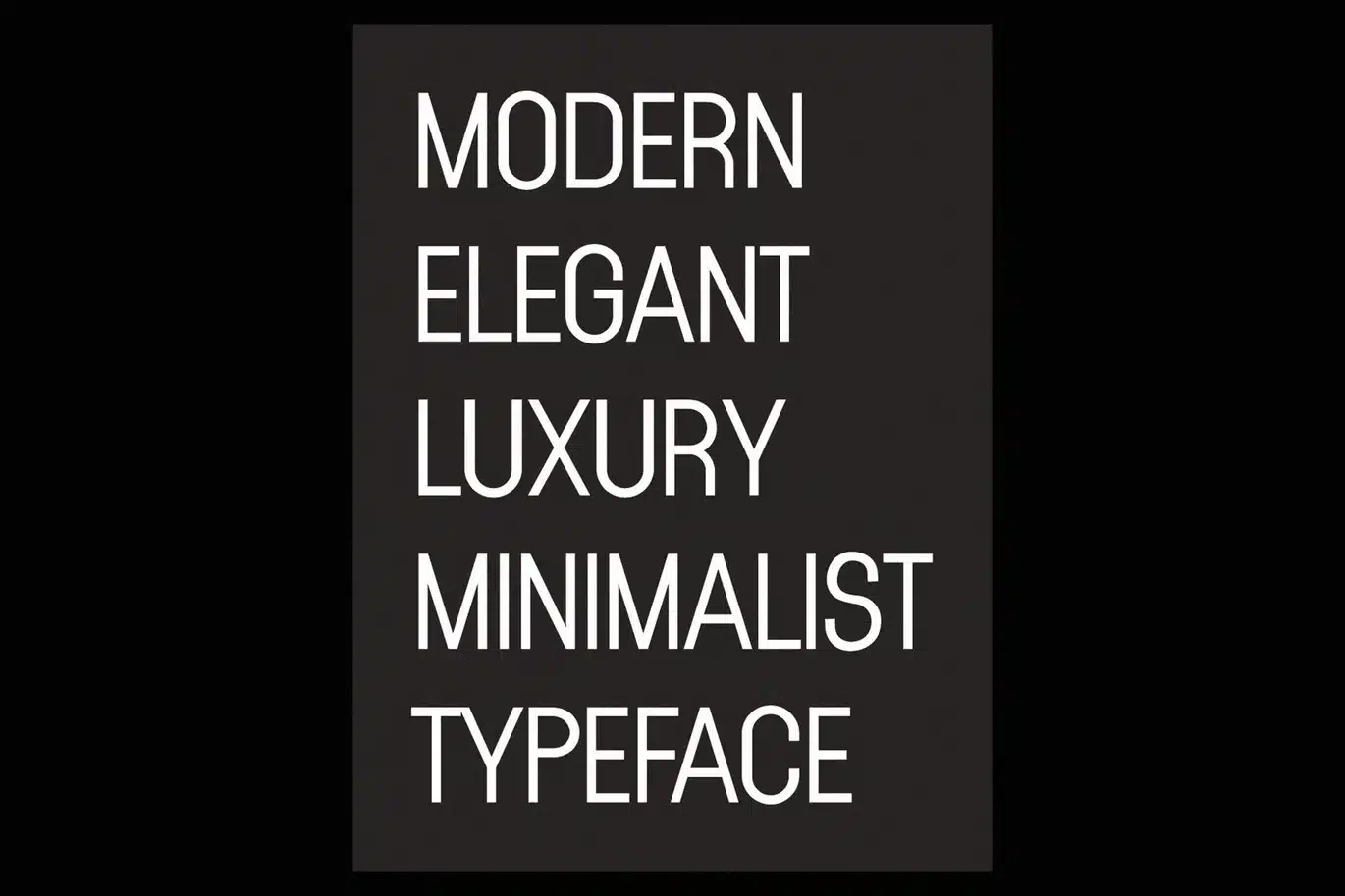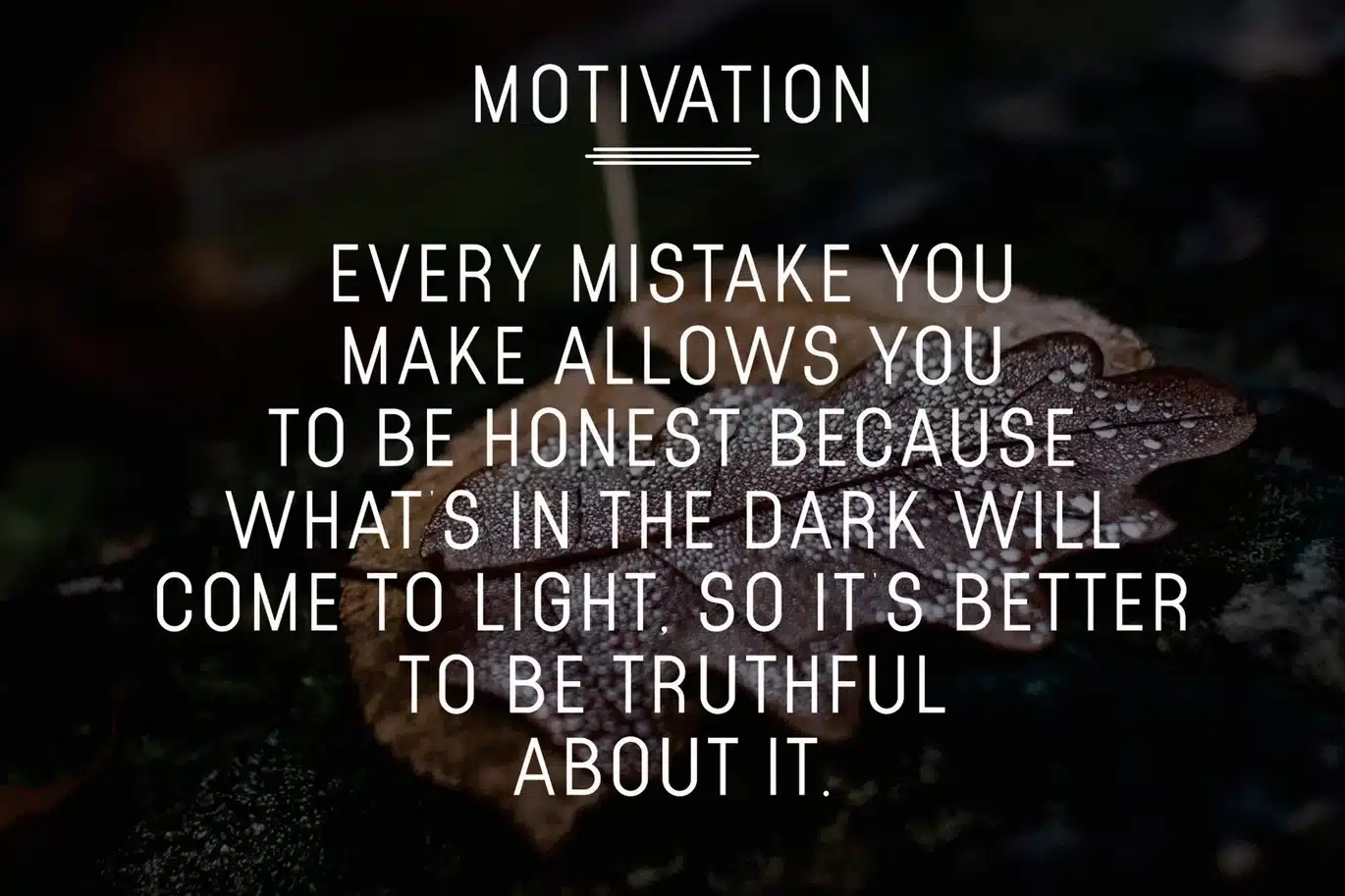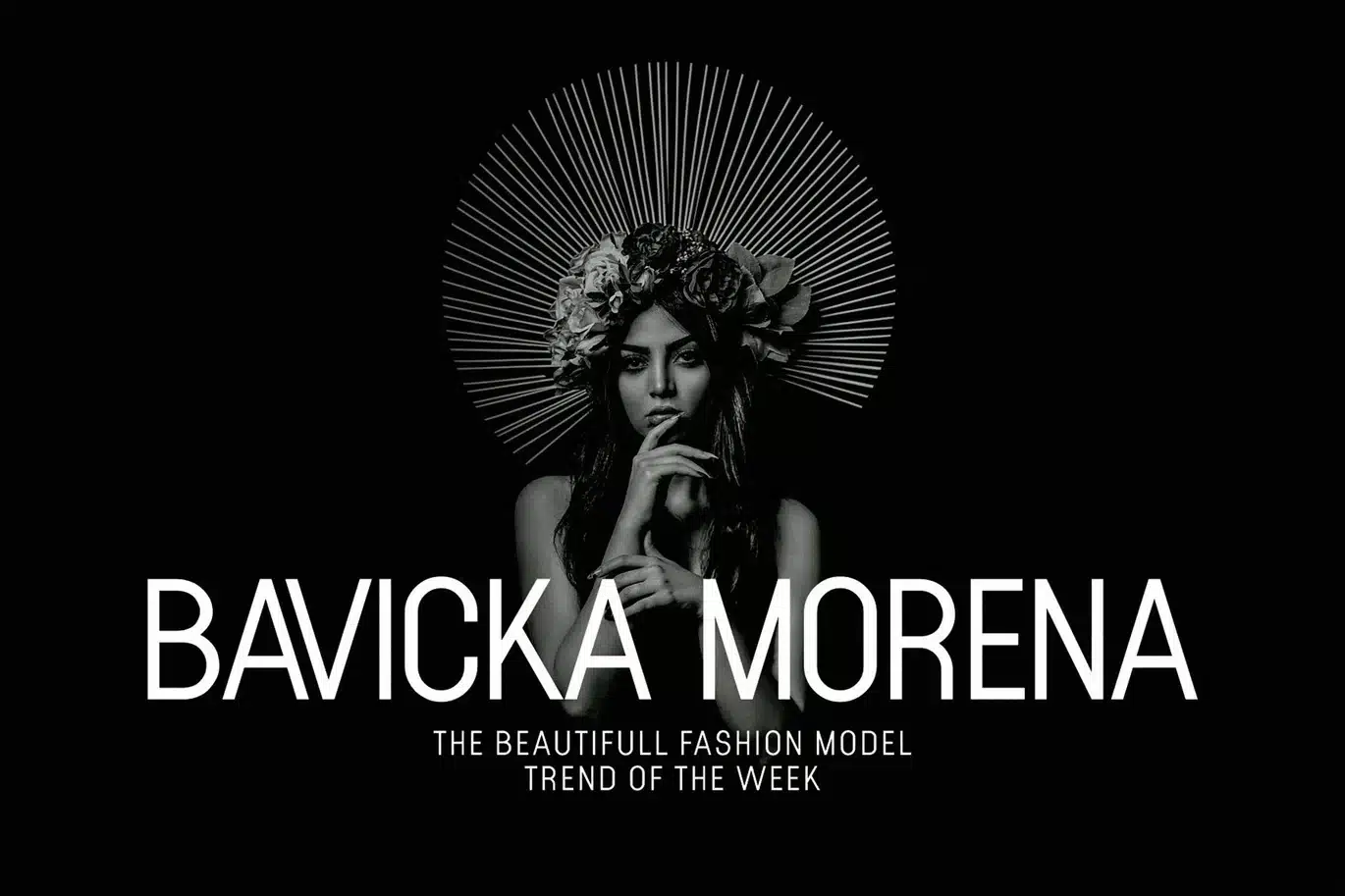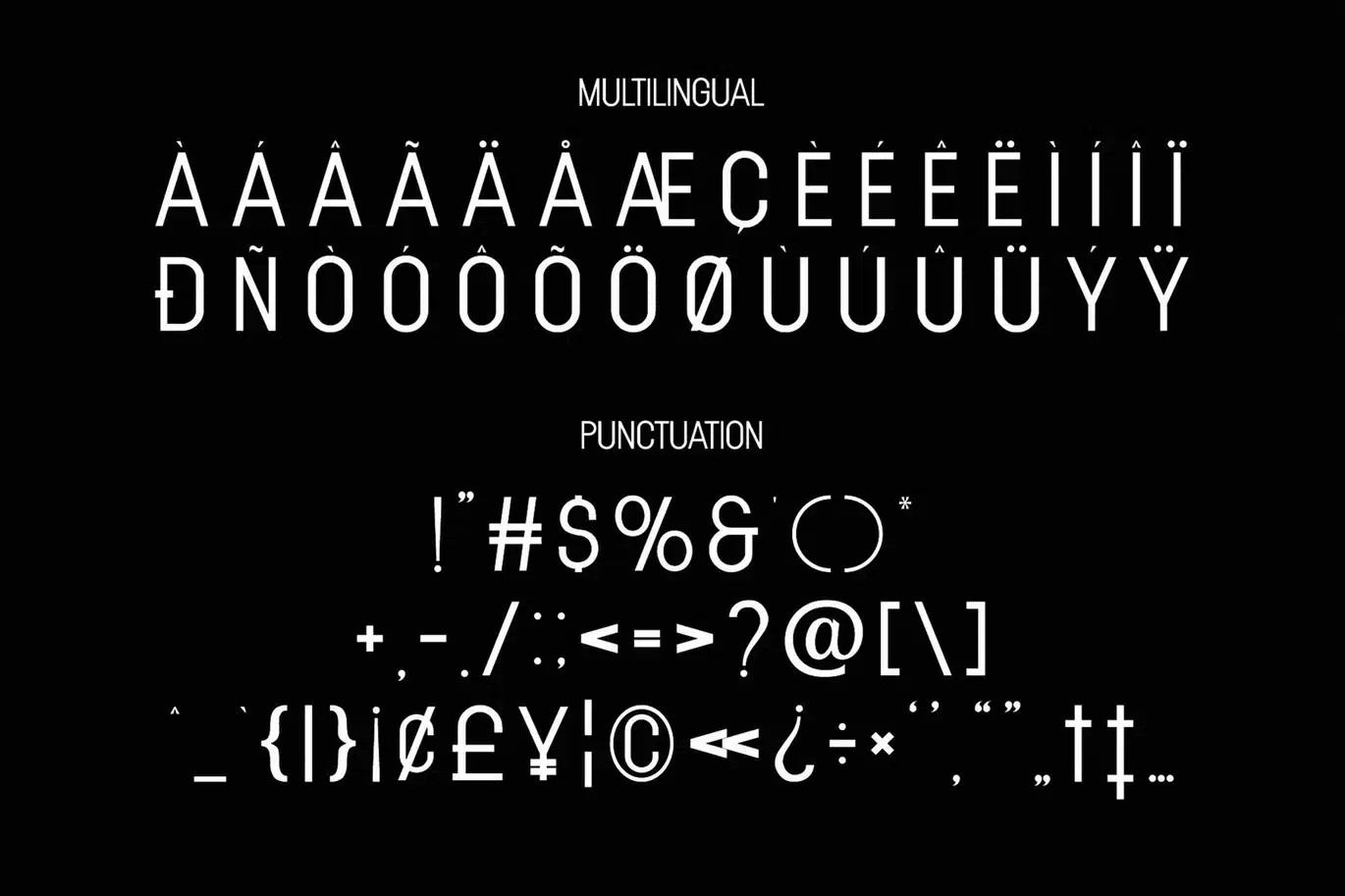
HERLIAN A New Sans Serif Font
HERLIAN Modern Sans Serif Typeface inspired by the famous minimalist logo perfect for the purposes of designing templates, brochures, videos, advertising branding, logos, invitation, layout design, elegant crafting, beauty design and other
- Standard glyphs
- International Accent